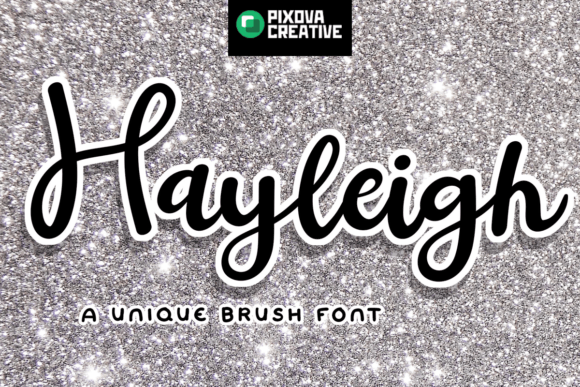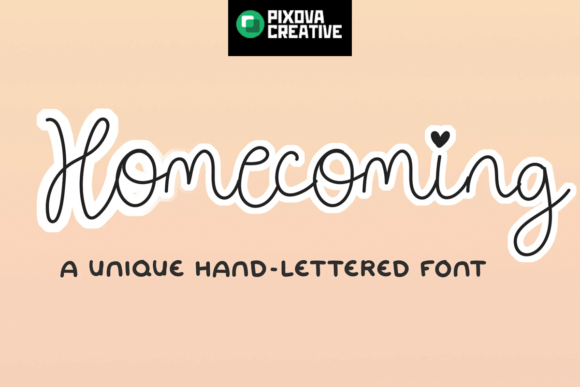
Unveil the Elegance of Hand-Penned Script: Hayleigh and Homecoming Duo Font
In the realm of typography, few things evoke the warmth and intimacy of cursive handwriting. The fluid strokes, the personal touch, and the elegance that comes with it are often sought after in various design projects, from personal correspondences to wedding invitations. This is where the Hayleigh X Homecoming Duo Font steps in, offering a sublime blend of sophistication and authenticity that is sure to transform your designs.
The Essence of Cursive Elegance
The Hayleigh and Homecoming fonts are a captivating pair that echoes the organic flow and genuine feel of cursive handwriting. Each letterform is meticulously crafted to deliver the delicate sophistication that hand-penned scripts are known for. Whether you’re working on a project that requires a personal touch or aiming to add a level of quaint elegance, this duo of fonts is perfectly suited to meet your needs.
Perfect for Personal and Intimate Projects
From heartfelt letters to wedding invitations, the Hayleigh X Homecoming Duo Font brings a level of intimacy and warmth that digital fonts often lack. Their cursive nature and fluid connections make them ideal for:
- Personal Correspondences: Add a touch of elegance to your letters and notes.
- Wedding Invitations: Create quaint and memorable invitations that set the tone for your special day.
- Design Projects: Infuse your projects with an intimate touch that resonates with your audience.
Embracing the Beauty of Cursive Typography
The Hayleigh and Homecoming fonts invite you to embrace the beautifully intertwined world of cursive typography. Their design ensures that your text doesn’t just convey information but tells a story of elegance, care, and thoughtfulness. With these fonts, you can:
- Enhance Readability: The clear and flowing nature of the fonts ensures that your text is not only beautiful but also easy to read.
- Express Individuality: Stand out with a unique typographic style that captures the essence of handwriting.
- Save Time: Achieve professional-looking results without the need for extensive design work.
Who Can Benefit from Hayleigh and Homecoming?
The versatility of the Hayleigh X Homecoming Duo Font makes them accessible and beneficial for a wide range of users, including:
- Graphic Designers: Looking for authentic and elegant typefaces for client projects.
- Stationery Designers: Creating bespoke stationery, journals, and planners.
- Wedding Planners: Seeking unique and beautiful fonts for wedding stationery.
- Crafters and DIY Enthusiasts: Adding a professional touch to handmade crafts and personal projects.
The Hayleigh X Homecoming Duo Font offers a gateway to incorporating the elegance and charm of cursive handwriting into your designs. With their organic flow, authentic feel, and delicate sophistication, these fonts are poised to become your go-to choice for projects that demand a personal and intimate touch. Dive into the world of beautifully intertwined cursive typography and let Hayleigh and Homecoming transform your designs with their sublime elegance.